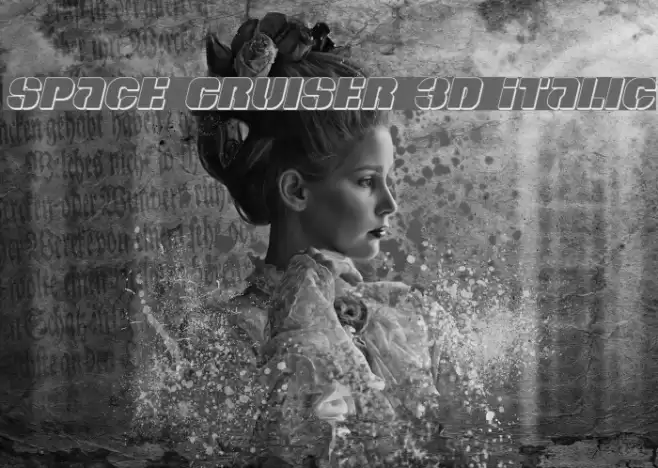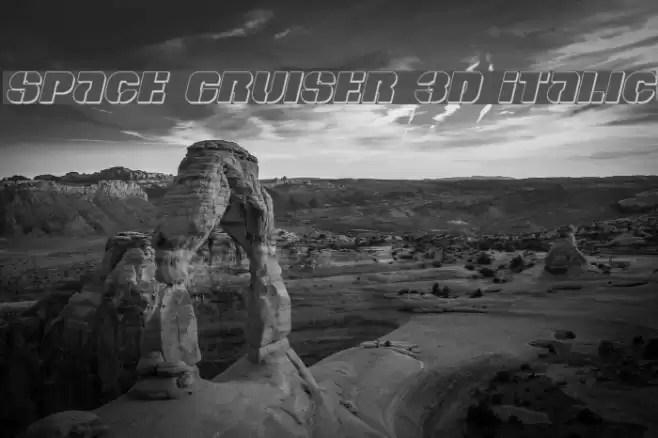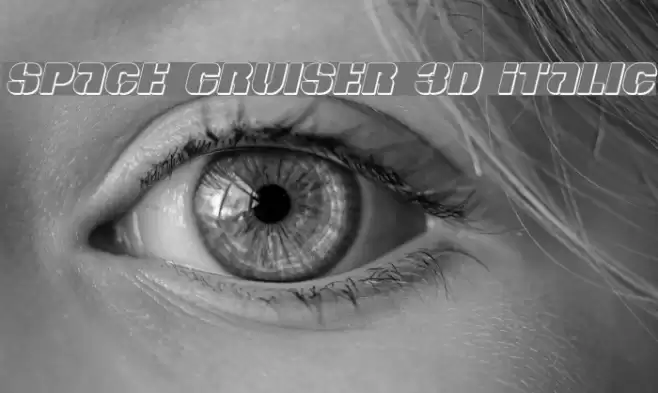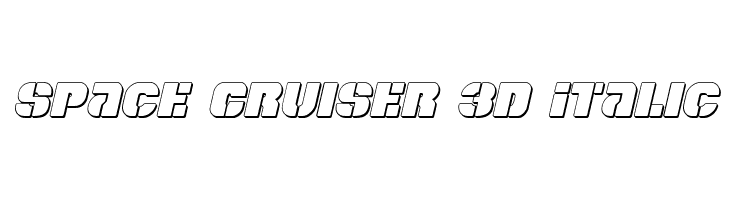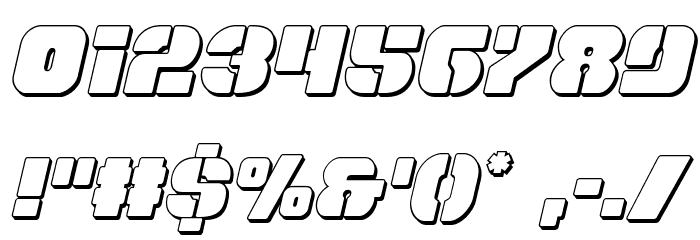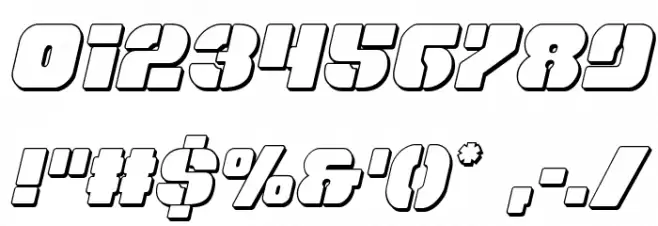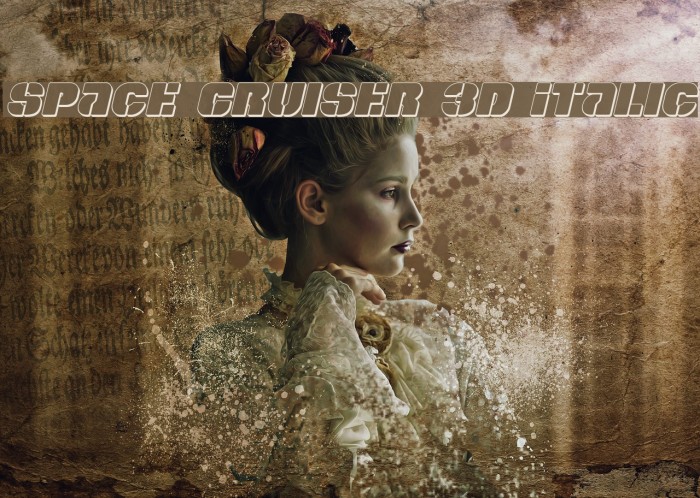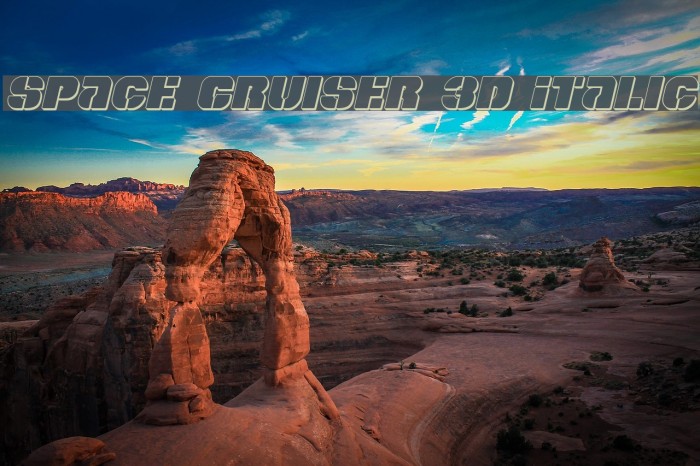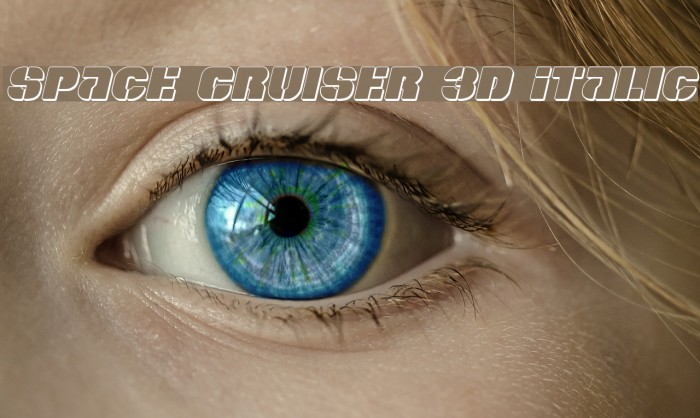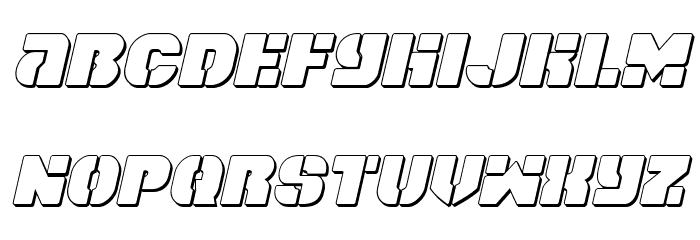
Space Cruiser 3D Italic Font
Space Cruiser 3D Italic Description
This font features a bold, futuristic design with a 3D effect that gives each character a sense of depth and dimension. The italicized style adds a dynamic, forward-moving energy, making it ideal for projects that require a modern and innovative look. The characters are outlined, enhancing the 3D appearance and providing a unique visual impact. This font is perfect for creating eye-catching headlines, logos, and posters that need to stand out. The spacing between characters is normal, allowing for readability while maintaining its distinctive style.
A bold, 3D italic font with a futuristic and dynamic style from Uncategorized fonts.
- Proposed Projects: Ideal for sci-fi themed designs, video game titles, tech company logos, and futuristic posters.
- Overall Style: Futuristic, Dynamic